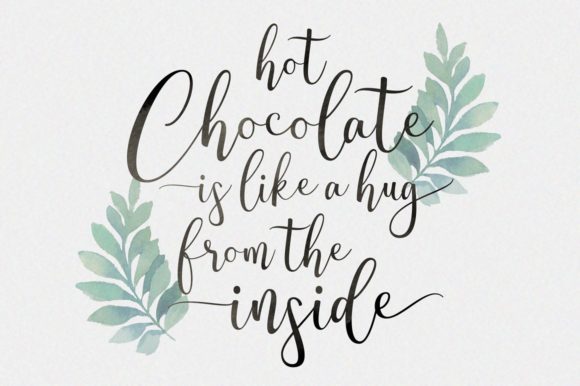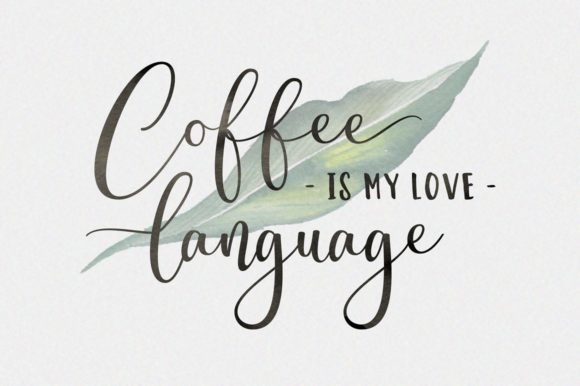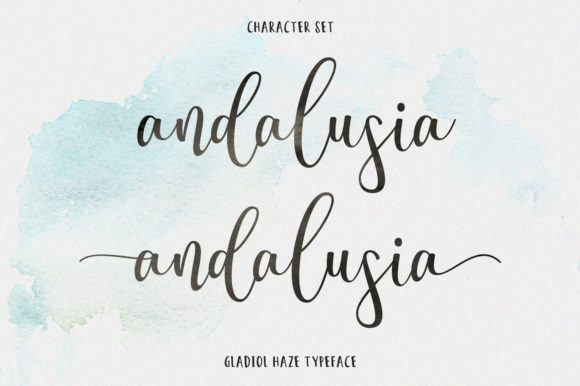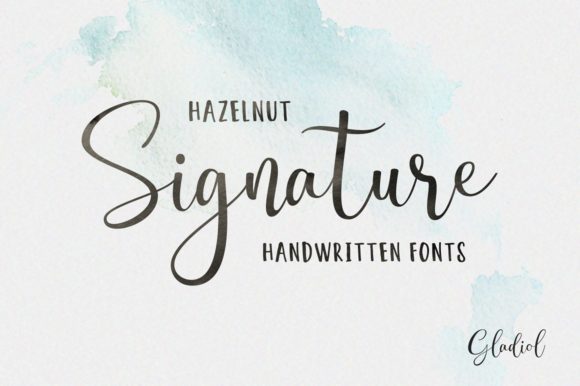
Introducing Gladiol Font: Elevate Your Designs with Elegance and Simplicity
Are you on the hunt for a font that embodies both simplicity and elegance? Look no further than the Gladiol Font. This beautifully crafted handwritten font is designed to bring a touch of sophistication and charm to any design project. With its flowing lines and well-balanced characters, Gladiol is the perfect addition to your typographic arsenal.
The Beauty of Gladiol
Gladiol is more than just a font; it’s a design element that can elevate your creative projects to new heights. Its simple yet flowing handwritten style makes it incredibly versatile, allowing it to seamlessly integrate into a wide range of designs. Whether you’re working on a branding project, crafting a beautiful wedding invitation, or creating engaging content for your blog or social media channels, Gladiol is sure to make your designs come alive.
Key Features of Gladiol Font
- Simple and Flowing Handwritten Style: Gladiol boasts a clean and elegant handwritten look that adds a personal touch to any design.
- Beautifully Balanced Characters: Each character in the Gladiol font is carefully crafted to ensure perfect balance and harmony, making it a joy to read and look at.
- Versatility: From elegant branding and advertising materials to charming invitations and social media graphics, Gladiol fits a wide pool of designs.
- Ease of Use: Designed with the user in mind, Gladiol is easy to incorporate into your projects, regardless of your design experience.
Why Choose Gladiol?
In a world where design trends come and go, a versatile and timeless font like Gladiol is a valuable asset. Here are a few reasons why designers and crafters are falling in love with Gladiol:
- Enhances Readability: Despite its elegant and flowing nature, Gladiol remains highly readable, making it perfect for both headings and body text.
- Unique yet Approachable: It offers a unique style that stands out from more traditional fonts but remains approachable and friendly.
- Supports Various Languages: With a comprehensive character set, Gladiol supports multiple languages, making it a great choice for global brands and projects.
Using Gladiol in Your Projects
So, how can you incorporate Gladiol into your designs? The possibilities are endless. Here are a few ideas to get you started:
- Branding and Logotypes: Use Gladiol to create a memorable logo or brand identity that exudes elegance and professionalism.
- Wedding and Event Invitations: Add a touch of romance and sophistication to your wedding or event invitations with Gladiol.
- Social Media Graphics: Stand out on social media with eye-catching graphics and posts that utilize the unique charm of Gladiol.
- Packaging Design: Elevate your product packaging with a font that communicates luxury and quality.
| Author | Colative |
Gladiol Font is a beautiful, simple, and flowing handwritten font that can add a touch of elegance and charm to any design project. Its versatility, readability, and timeless appeal make it an excellent choice for designers and crafters looking to elevate their designs. Whether you’re creating branding materials, invitations, social media graphics, or packaging, Gladiol is sure to bring your creative ideas to life. So, why wait? Discover the beauty of Gladiol and take your designs to the next level.